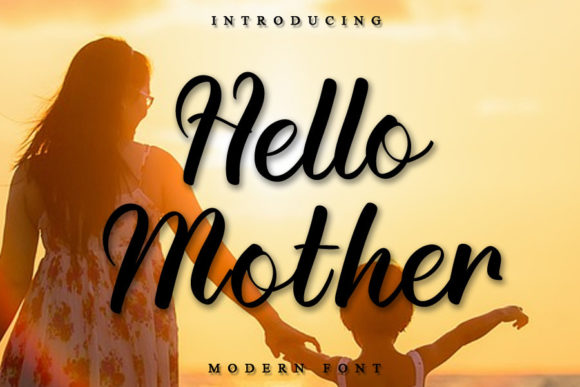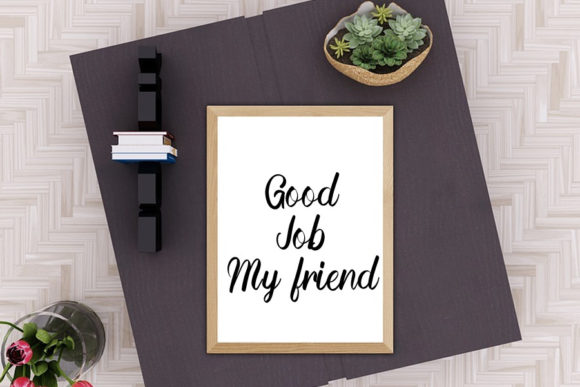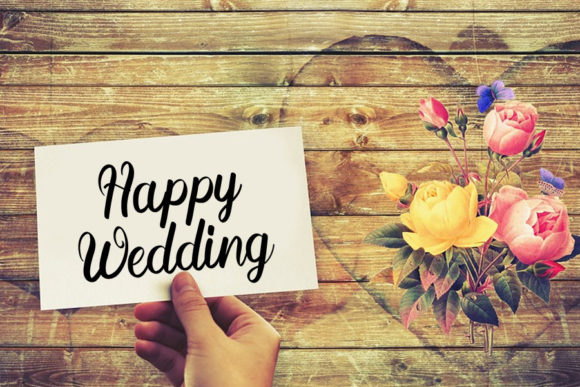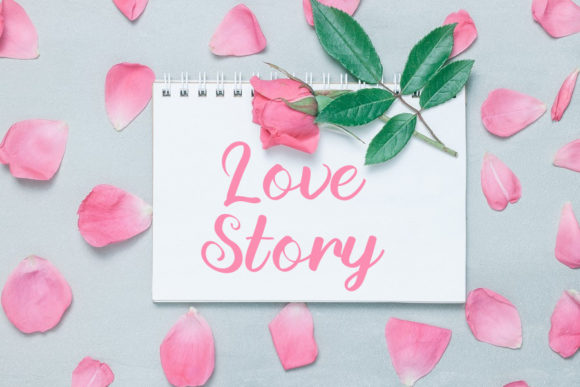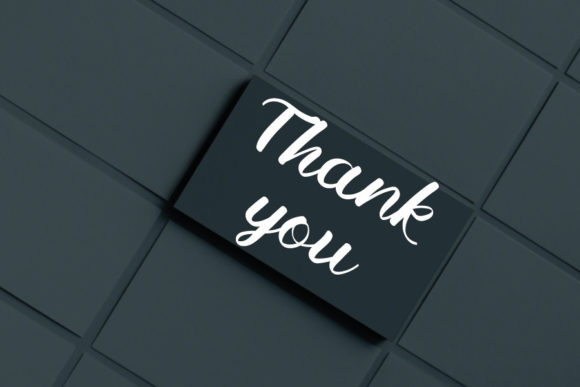
Hello Mother Font
About Hello Mother Font
“Hello Mother” is described as a fresh and beautiful font that serves well in various design contexts. Its versatility makes it suitable for a range of design purposes, including YouTube banners, cover logos, mockups, wedding invitations, ID cards, flyers, and crafts. The claim is that incorporating this font into your designs can contribute to the progress and development of your business. Additionally, the font is highlighted for its simplicity and uniqueness.
The clean and distinctive style of “Hello Mother” is emphasized, suggesting that it brings a contemporary and elegant aesthetic to your projects. The font’s adaptability to different design applications is highlighted, making it a valuable tool for a diverse array of creative endeavors.
The assertion that using “Hello Mother” can contribute to the progress and development of your business implies that the font carries a positive and impactful visual appeal. The simplicity and uniqueness mentioned further suggest that the font stands out while maintaining a straightforward and easily readable design.
In summary, “Hello Mother” is presented as a font that combines freshness, simplicity, and uniqueness, making it well-suited for a variety of design purposes. Whether used in digital or print media, it is positioned as a tool that can enhance the visual appeal of your projects, ultimately contributing to the progress and development of your business.